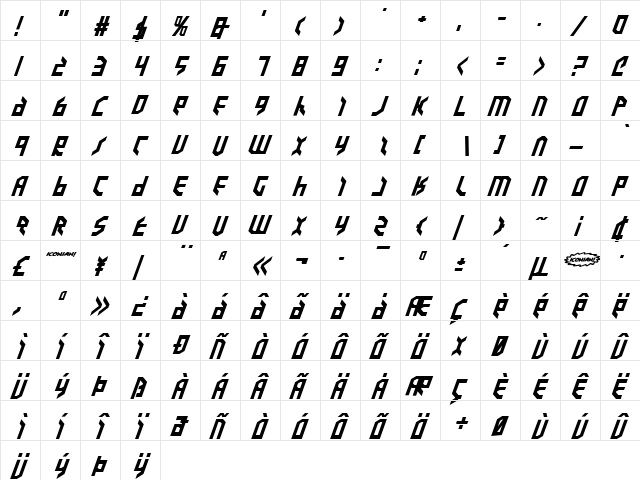
Valkyrie Expanded Bold Italic Expanded Bold Italic
Design Context for Valkyrie Expanded Bold Italic Typeface
Valkyrie Expanded Bold Italic is a composed and adaptable typeface that performs quietly and consistently across a wide range of design contexts. Its italic angle brings a sense of urgency and motion to the letterforms. Its bold stroke weight gives it real presence on the page.
Pro Tip: Use Valkyrie Expanded Bold Italic for emphasis, pull quotes, and subheadings where its slanted energy can add rhythm to the layout.